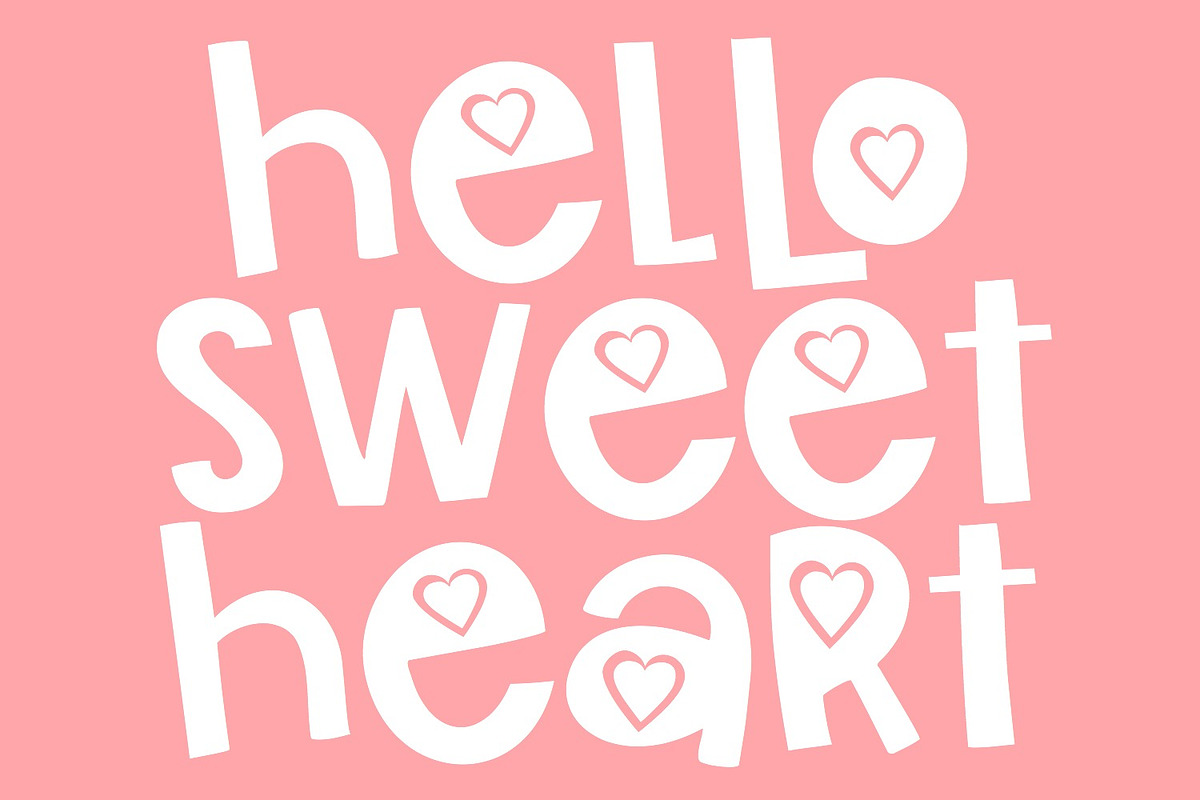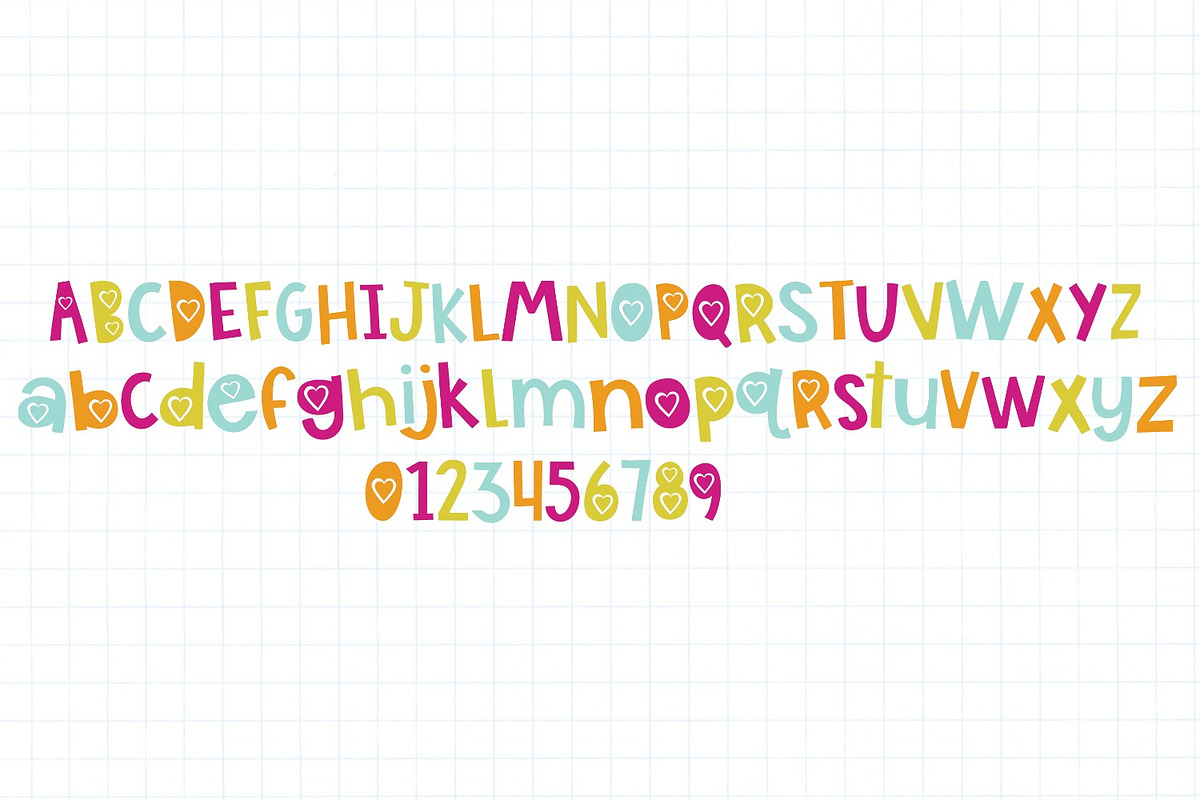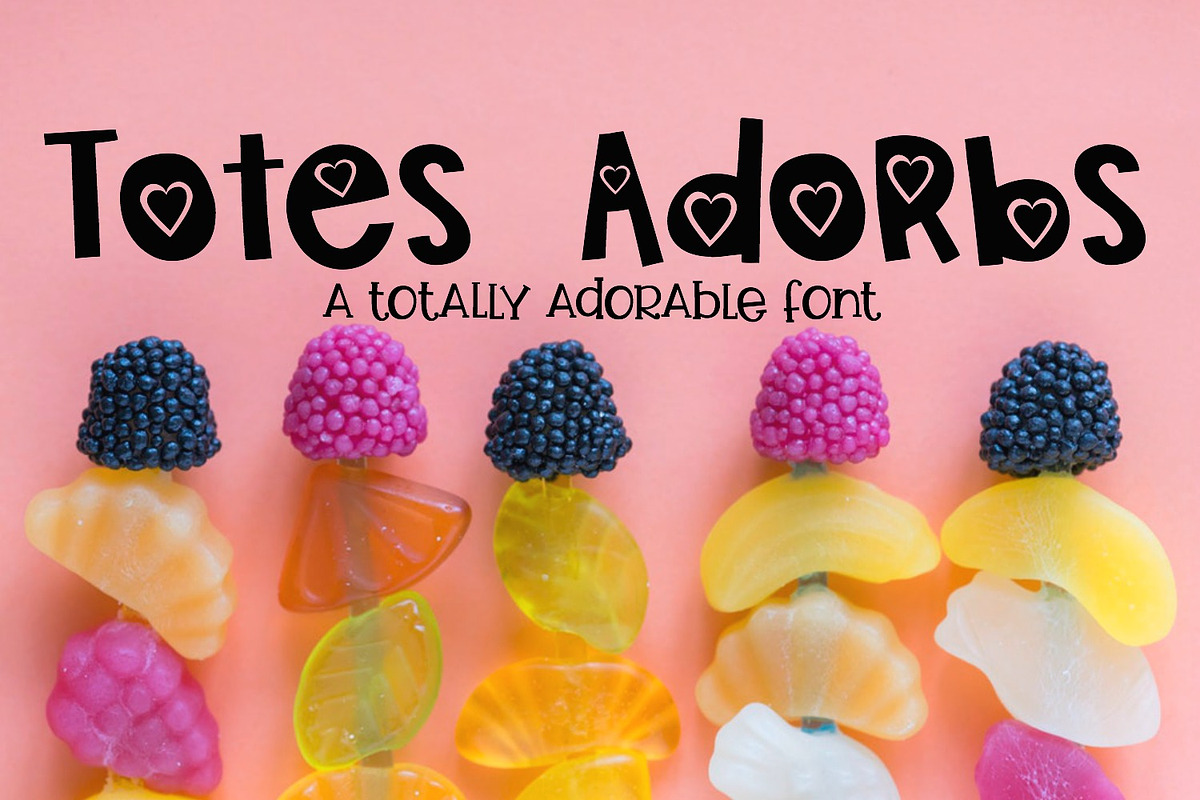
Totes Adorbs Font
Totes Adorbs is a fun, bold font that's perfect for girly, youthful designs!
Totes Adorbs Font by Sabrina Schleiger Design fits naturally into Branding, posters, packaging, typography.